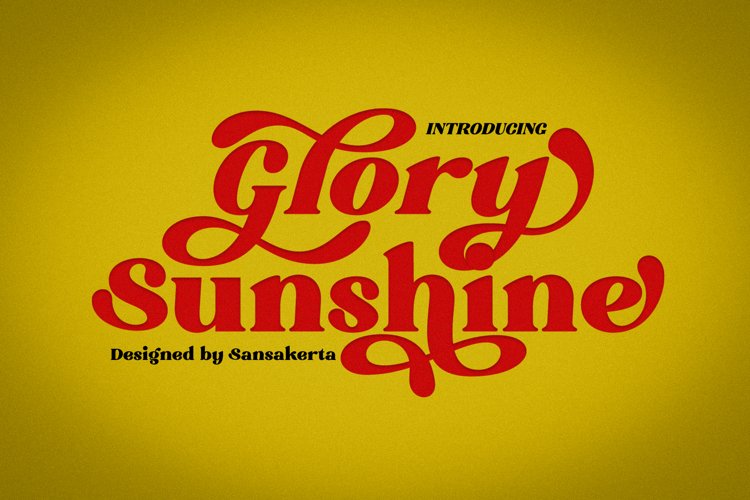
Created By Sansakerta
Glory Sunshine
Glory Sunshine is a bold with vintage modern styles. A font that has stylistics and ligatures that will make your project stand out.
This font consists of uppercase, lowercase, numbers, punctuation and is supported by multilingual symbols.
OPENTYPE FEATURES
• Swash
• Standard Ligatures
• Discretionary Ligatures
• Stylistic Set (ss01)
• All Alternates
• Multilingual character